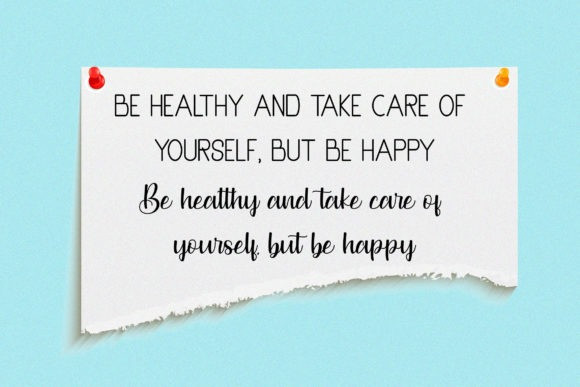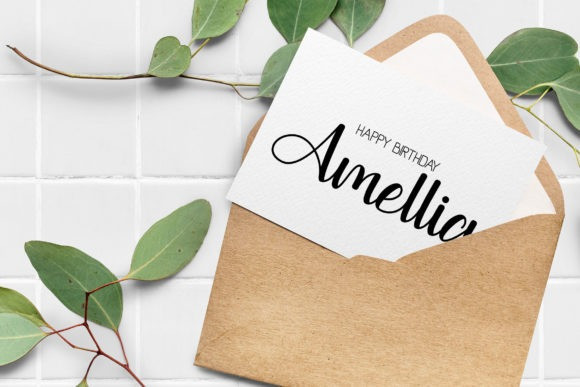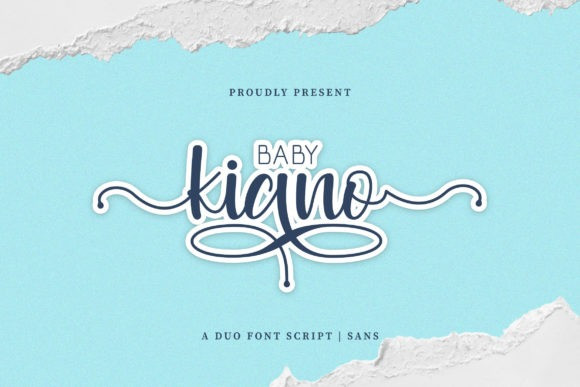
Baby Kiano Font
Baby Kiano Duo is a lovely handwritten and sans serif combination. Expertly designed to make your creation look out of this world, this font will look gorgeous on a variety of ideas. Baby Kiano Duo is PUA encoded which means you can access all of the glyphs and swashes with ease!